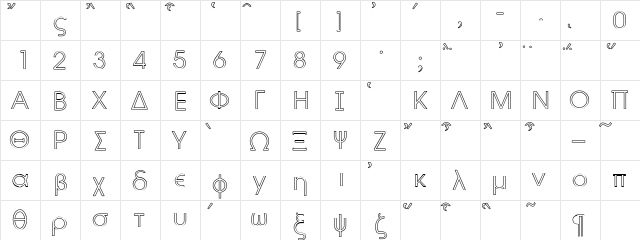
Byzantine Hollow Regular Font Preview
Byzantine Hollow Regular
Design Context for Byzantine Hollow Typeface
Byzantine Hollow offers clean, dependable letterforms without strong stylistic allegiance, making it a practical choice for designers who need flexibility.
Pro Tip: Use Byzantine Hollow in both headline and body roles to test its range before committing to a single application.